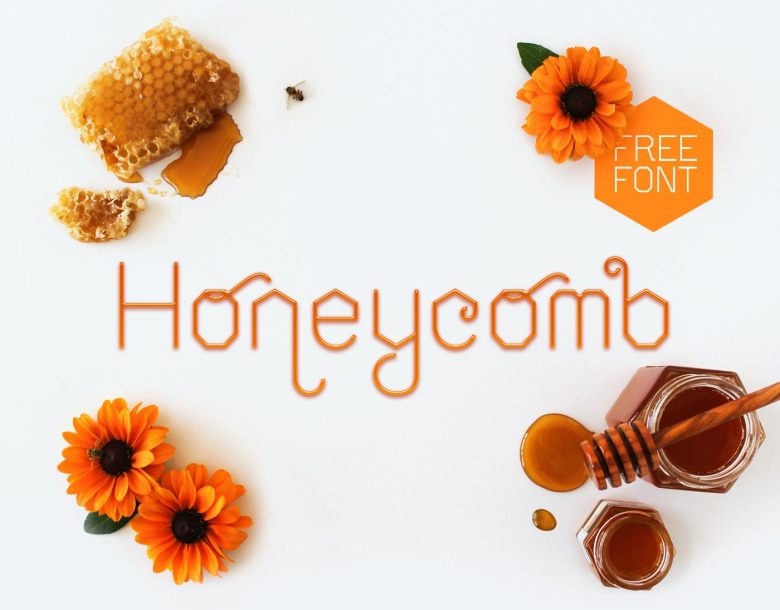
Honeycomb Font Family
Introducing to you the very special fonts. Honeycomb Font Family is shared by Katrina Sutton
Honeycomb Font Family is designed in a modern style, geometric design, inspired by the natural honeycomb. What you get in your download is Honeycomb Round Regular / Italic / Swash / It Swash as well as Honeycomb Sharp Regular / Italic / Swash / It Swash (8 fonts), Glyph Chart, and a read me note.